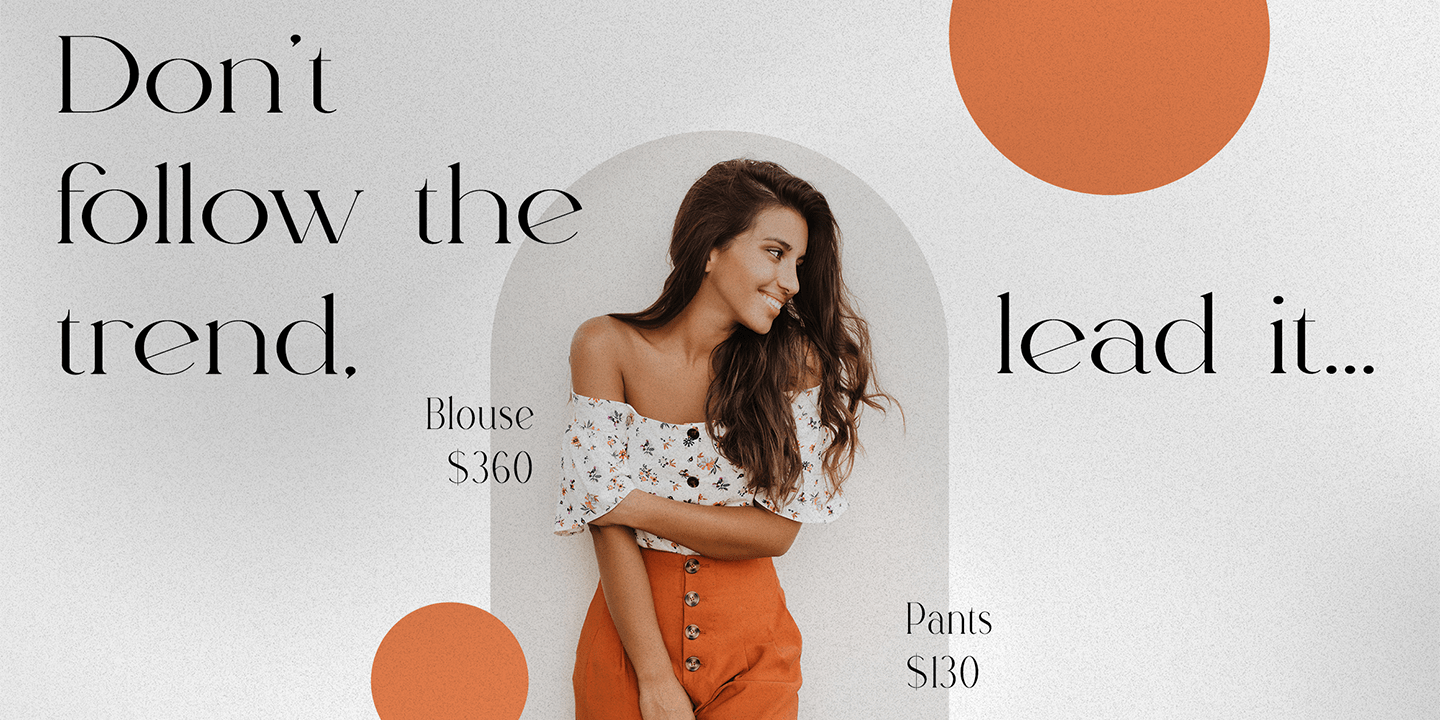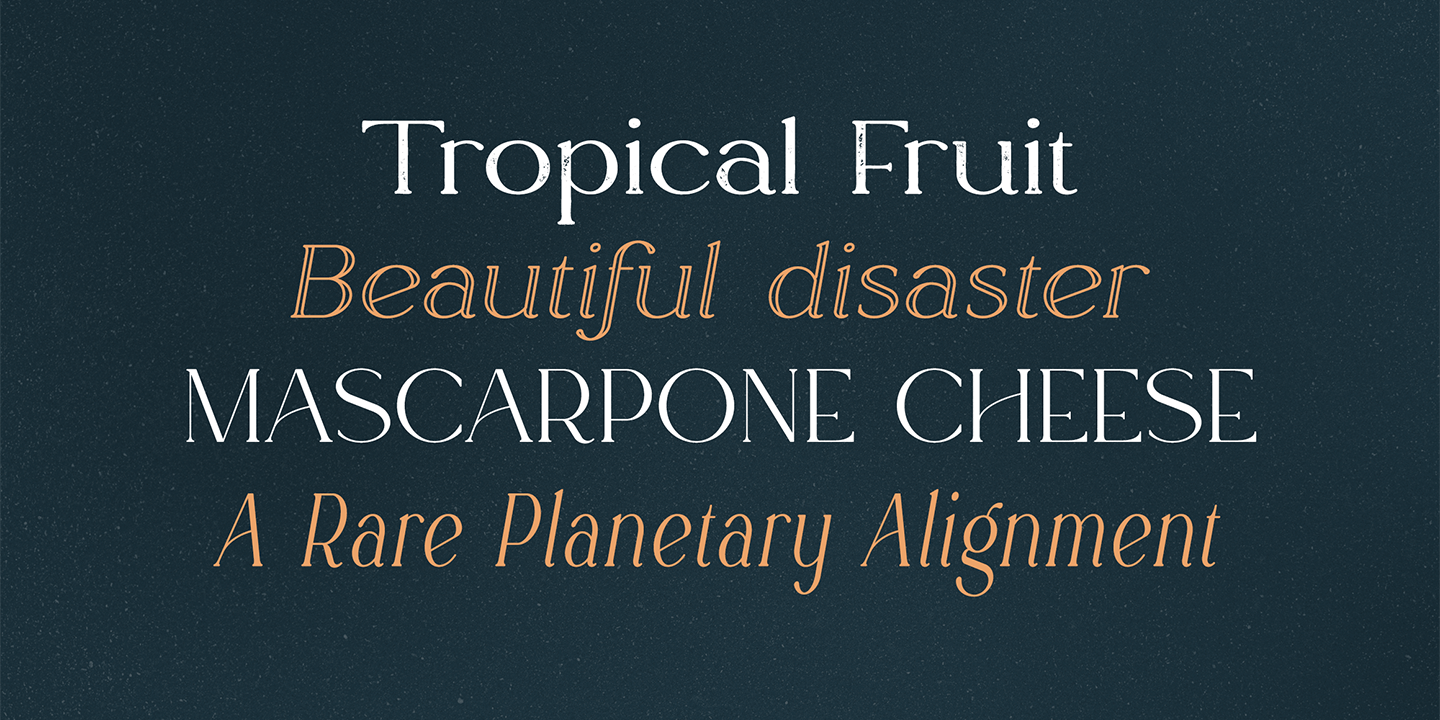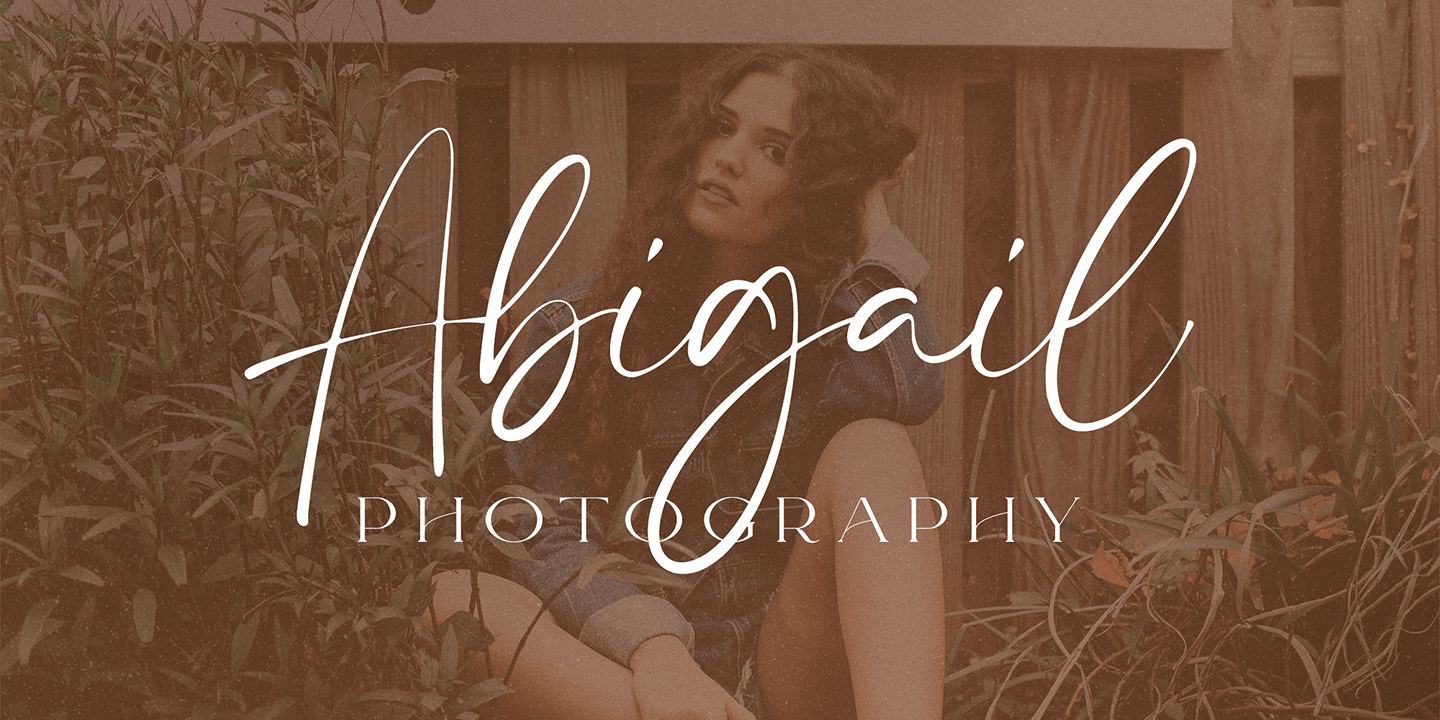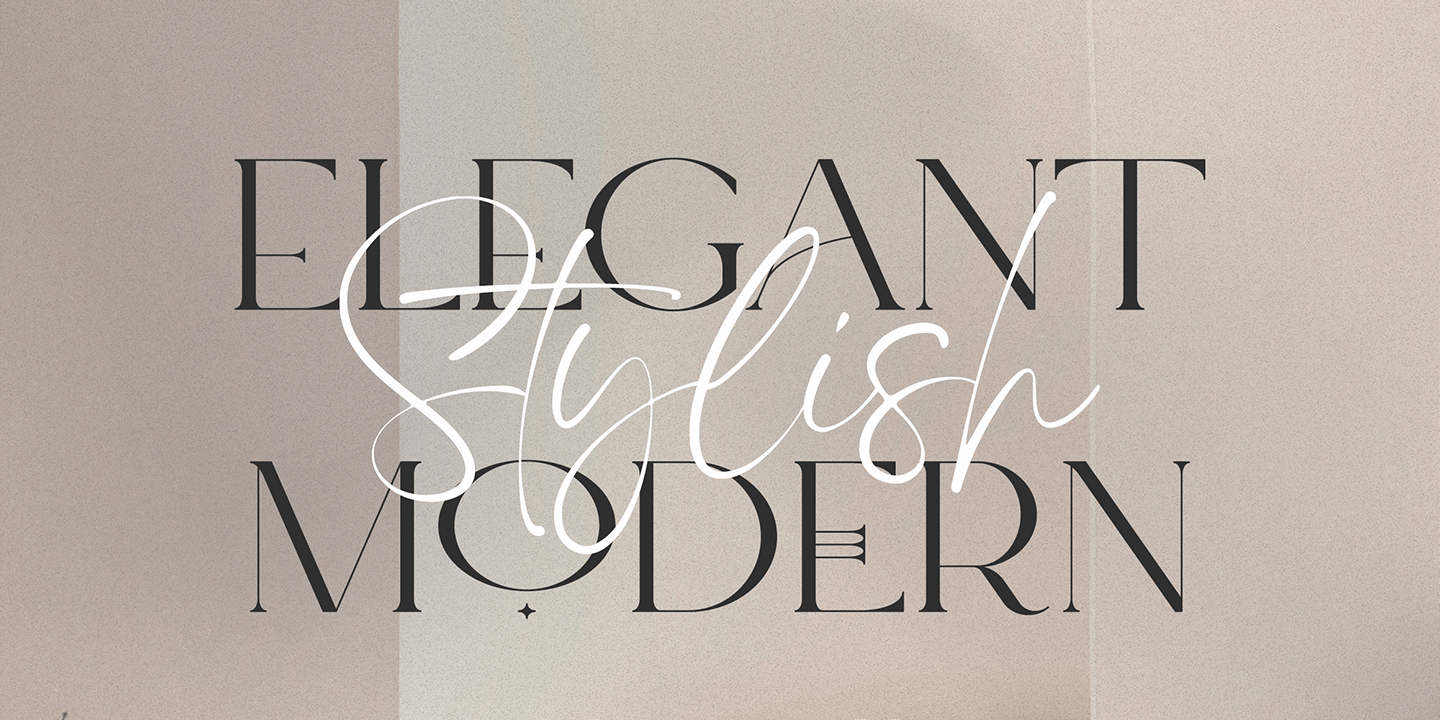
About Rowan
Introducing Rowan—the vintage-inspired typeface made for creatives! With a cool combination of 116 font styles and 87 languages, this unique typography provides the perfect finishing touch to your projects. Whether you're after something narrow…